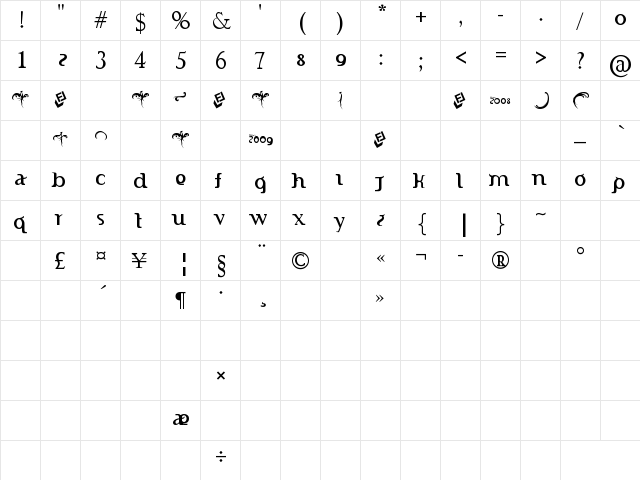
Indonesiana Serif Free ;) Regular
| Foundry | FizzeType Foundary DepokAsiana |
| Designer | Anxious Max Fizz |
Design Context for Indonesiana Serif Free ;) Typeface
Indonesiana Serif Free ;) brings classic typographic sensibility to the table — its serifs and measured letterforms reflect centuries of print heritage.